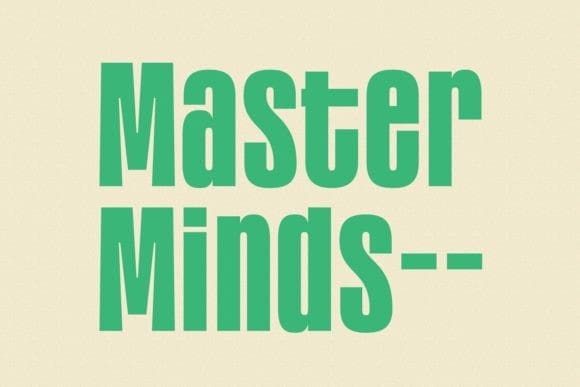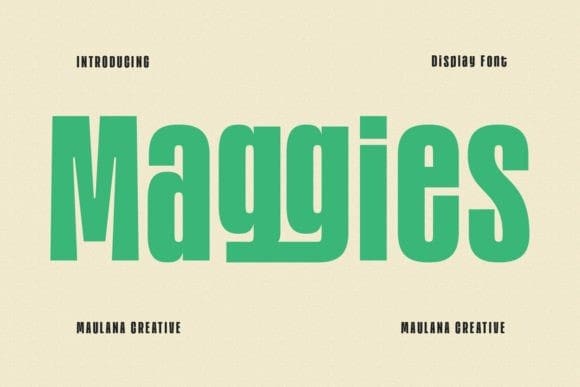
Maggies Font
Maggies Font is a modern condensed sans display font.Bold stroke, fun character with a bit of ligatures. To give you an extra creative work. Maggies font support multilingual more than 100+ language. This font is good for logo design, Social media, Movie Titles, Books Titles, a short text even a long text letter and good for your secondary text font with script or serif. Make a stunning work with Maggiesfont.